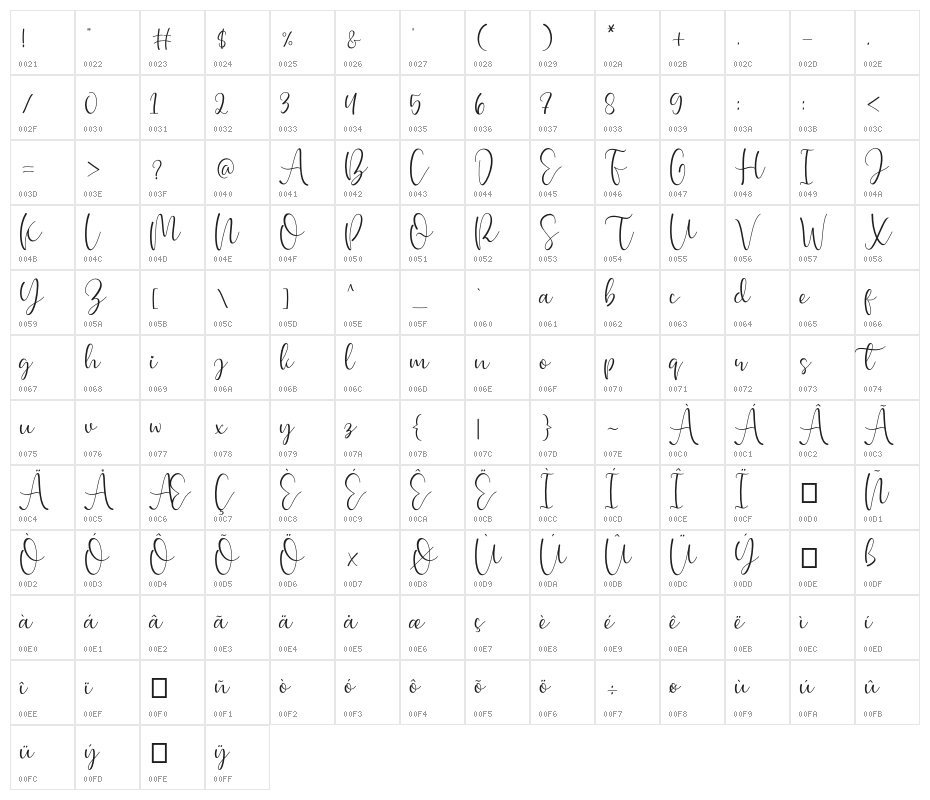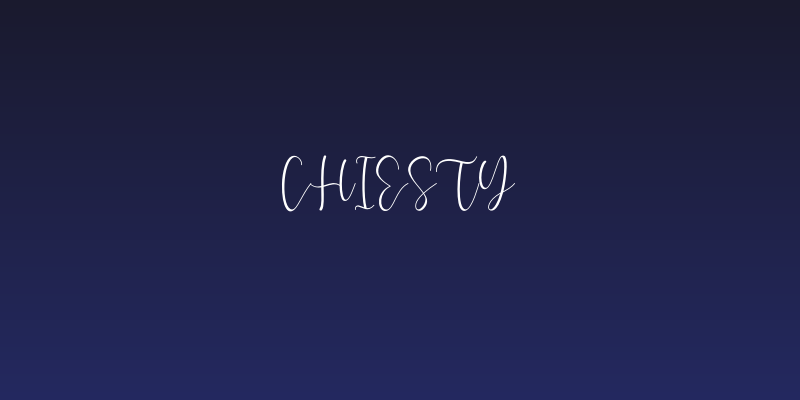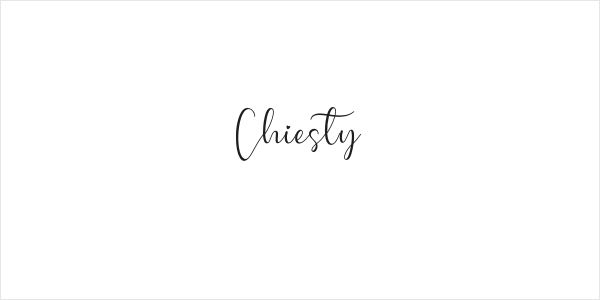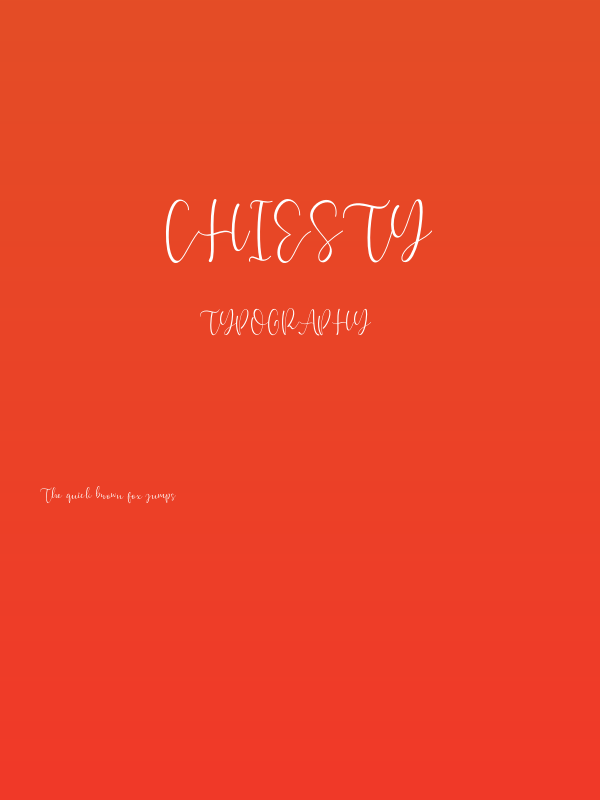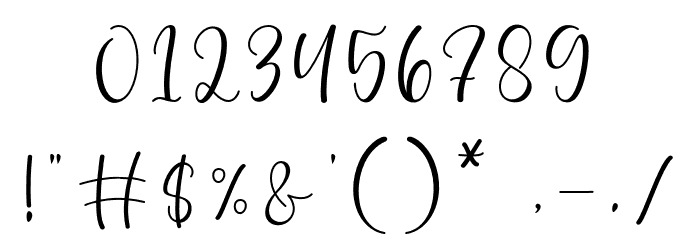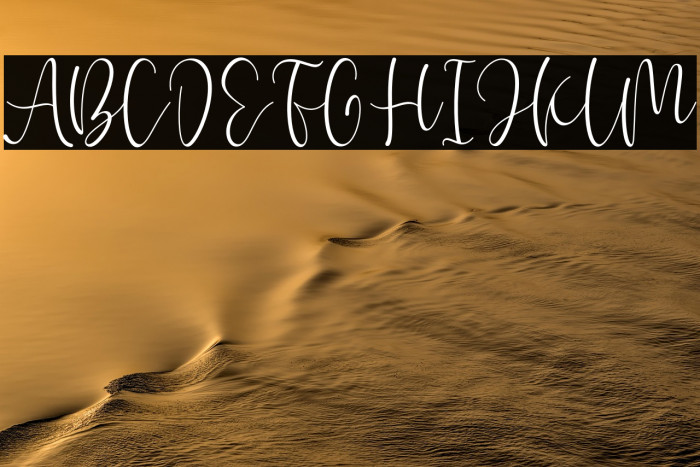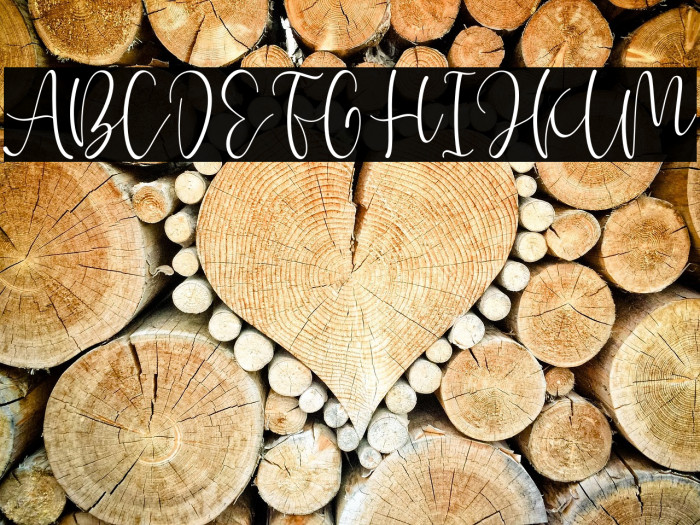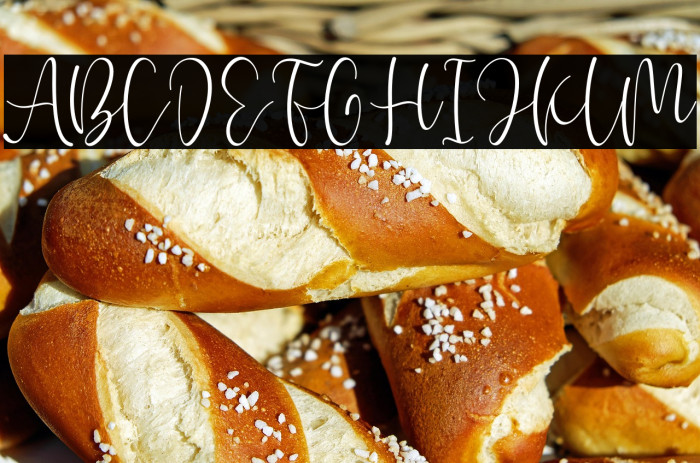
Chiesty Font
Chiesty Description
This font features a flowing, cursive style with elegant loops and swashes, giving it a handwritten appearance. The uppercase letters are tall and graceful, with some characters extending slightly above the baseline, adding a whimsical touch. The lowercase letters maintain a consistent flow, enhancing readability while retaining a personal, artistic flair. Numbers and special characters are designed to match the overall aesthetic, ensuring a cohesive look across all text. The font's strokes vary in thickness, providing a dynamic and lively feel, suitable for creative and expressive design projects.